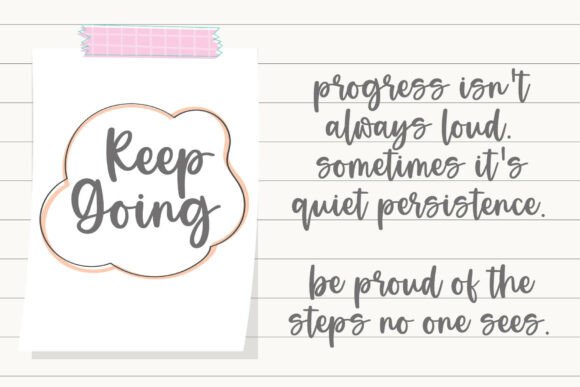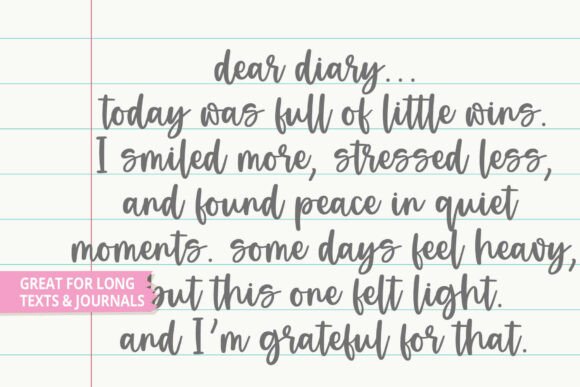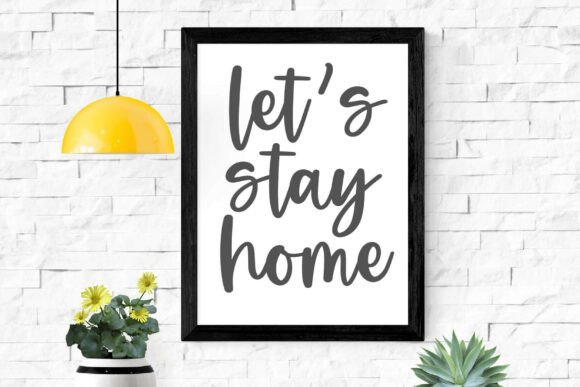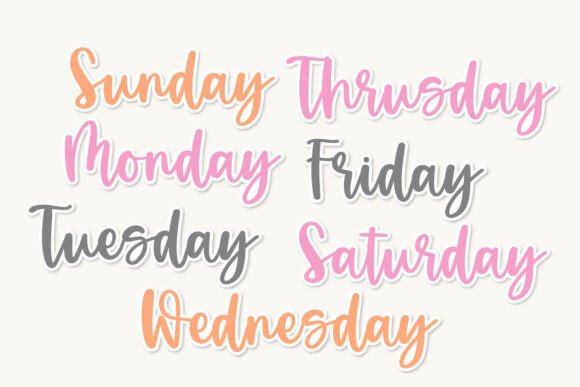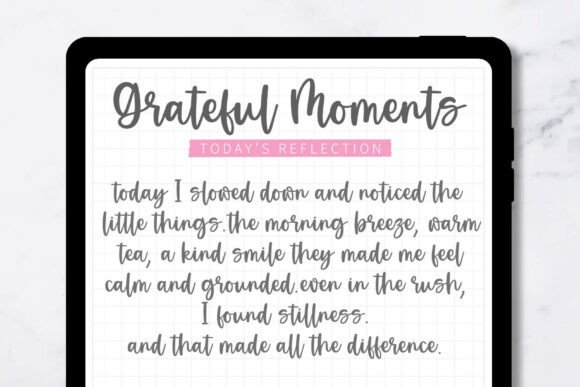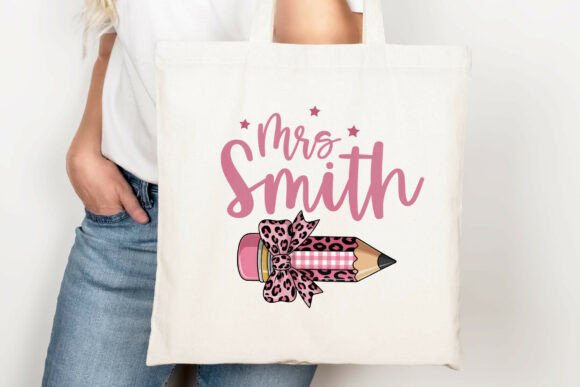
Berrynotes Font: The Sweet and Cheerful Handwritten Script Font for Creative Projects
Are you looking for a font that brings a playful and charming touch to your designs? Look no further than Berrynotes Font! 💚 Berry Notes is a sweet and cheerful handwritten script font that is perfect for a variety of creative projects. With its smooth, bubbly strokes and relaxed personality, it captures the feeling of cozy weekends, calm journaling sessions, and the joy of expressing yourself creatively.
The Characteristics of Berrynotes Font
Berrynotes Font is a handwritten script font with a bubbly twist. Its smooth, clean lines make it perfect for cutting machines like Cricut or Silhouette, while its relaxed personality gives your designs a hand-crafted touch that’s both casual and polished. Each letter flows naturally, giving your designs a unique and personalized feel.
Perfect for a Variety of Creative Projects
Berrynotes Font is versatile and can be used for a variety of creative projects, including:
- Designing planner pages
- Crafting sticker packs
- Making greeting cards
- Adding a soft vibe to digital posts
Whether you’re a designer, crafter, or DIY enthusiast, Berrynotes Font is the perfect addition to your creative toolkit.
Font Features
Berrynotes Font comes with a range of features that make it easy to use and versatile. Some of its key features include:
- Handwritten script style with a bubbly twist
- Clean, smooth lines for easy cutting
- Includes standard A-Z, a-z, numbers & basic punctuation
- Full support for A–Z, a–z, numbers, and basic punctuation ensures seamless use in any design software
Why Choose Berrynotes Font?
So why choose Berrynotes Font for your creative projects? Here are just a few reasons:
- Unique and personalized feel: Berrynotes Font gives your designs a hand-crafted touch that’s both casual and polished.
- Versatile: Berrynotes Font can be used for a variety of creative projects, from designing planner pages to crafting sticker packs.
- Easy to use: Berrynotes Font comes with clean, smooth lines that make it perfect for cutting machines like Cricut or Silhouette.
- Support for a wide range of characters: Berrynotes Font includes full support for A–Z, a–z, numbers, and basic punctuation, ensuring seamless use in any design software.
Tips for Using Berrynotes Font
Here are a few tips for using Berrynotes Font in your creative projects:
- Experiment with different colors and textures: Berrynotes Font looks great in a variety of colors and textures, so don’t be afraid to experiment and find the perfect combination for your design.
- Use it for titles and headings: Berrynotes Font is perfect for titles and headings, and can add a touch of personality to your designs.
- Pair it with other fonts: Berrynotes Font can be paired with other fonts to create a unique and interesting look.
In conclusion, Berrynotes Font is a sweet and cheerful handwritten script font that is perfect for a variety of creative projects. With its smooth, bubbly strokes and relaxed personality, it captures the feeling of cozy weekends, calm journaling sessions, and the joy of expressing yourself creatively. Its clean lines make it perfect for cutting machines like Cricut or Silhouette, while full support for A–Z, a–z, numbers, and basic punctuation ensures seamless use in any design software. So why not give Berrynotes Font a try and see how it can add a touch of personality to your designs? 💚